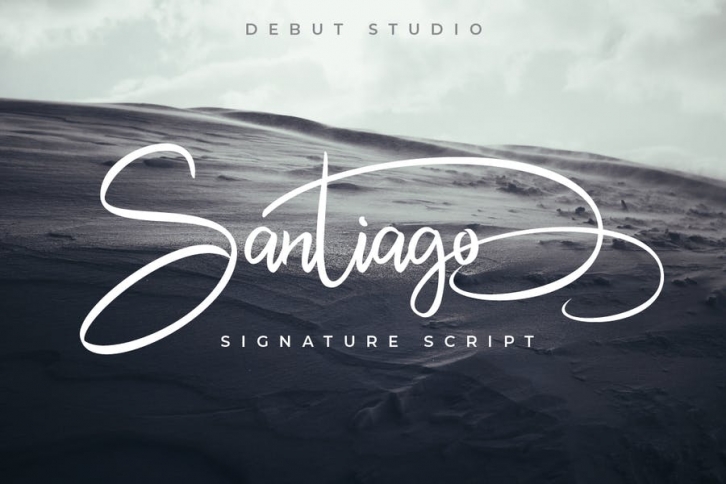
Introducing Santiago Signature Script, This font is perfect for design purposes such as lovely design for wedding, crafting, posters, business cards, and others.
• Multilingual support
• alternate stylistic